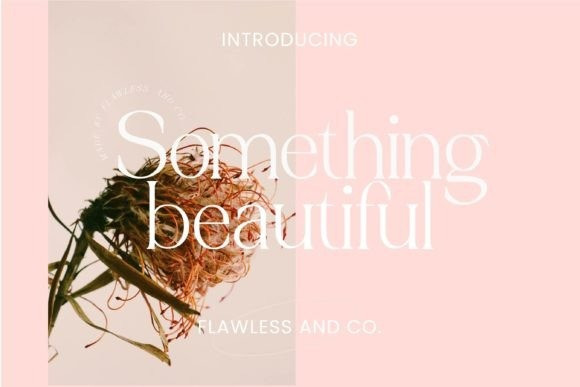
Golden Cosmic Font
Golden Cosmic Font by Flawless And Co 23,209 downloads
Golden Cosmic Font
Golden Cosmic Font, is a trendy and stylish serif font. Whatever the topic, this font will be a wonderful asset to your font library, as it has the potential to enhance any creation.